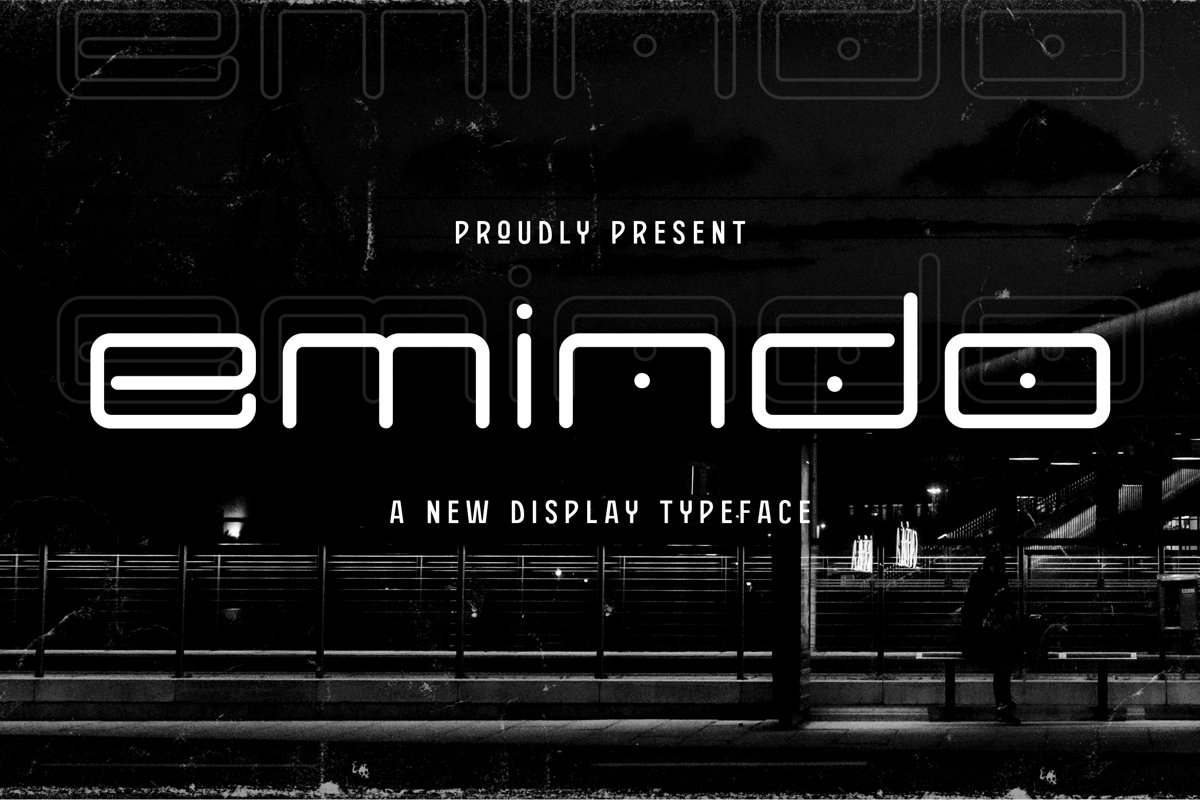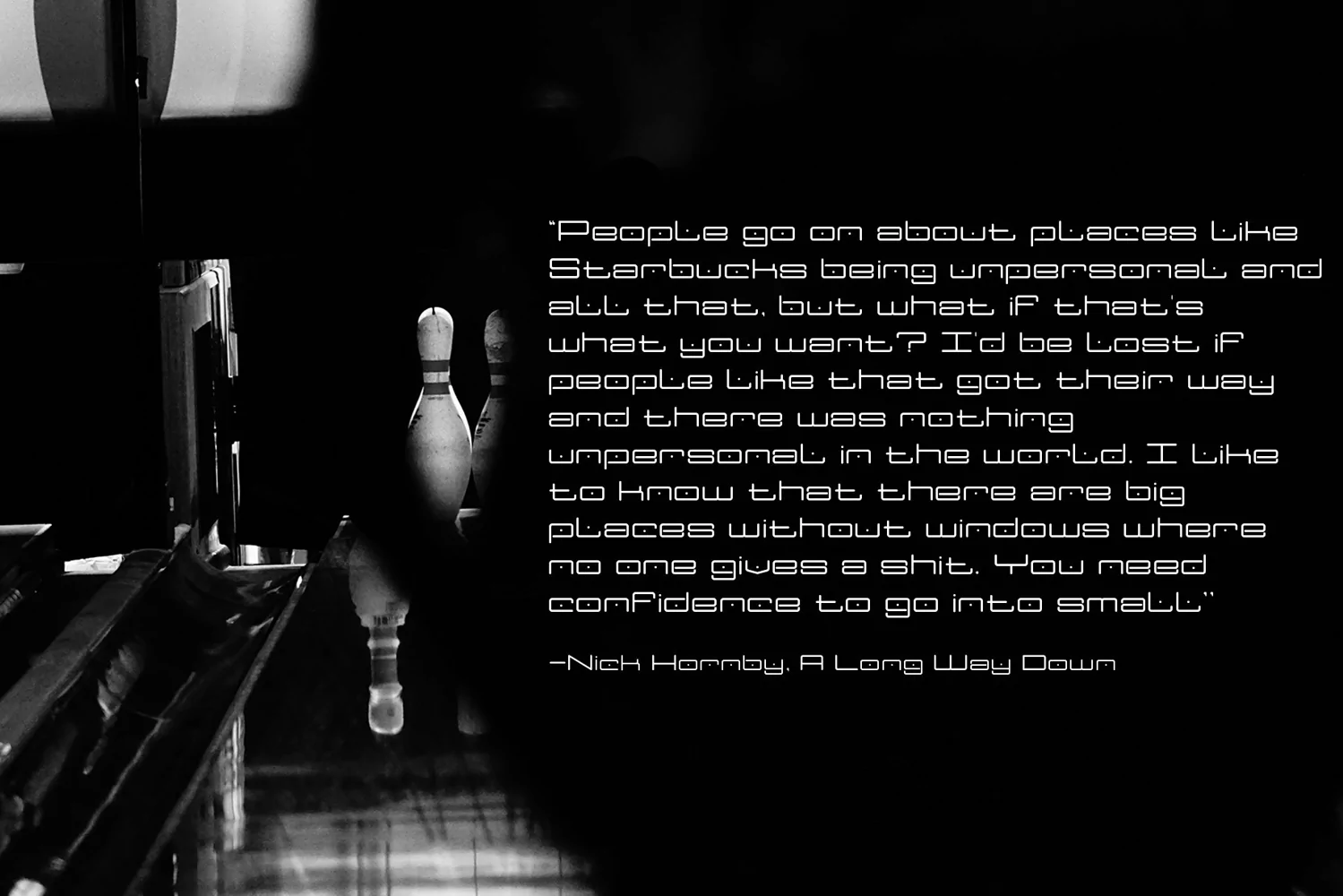
Emindo is a display typeface. Perfect for display, quotes, packaging, merchandise, business card, logo, branding, logotype, product, header, tittle, and many more.